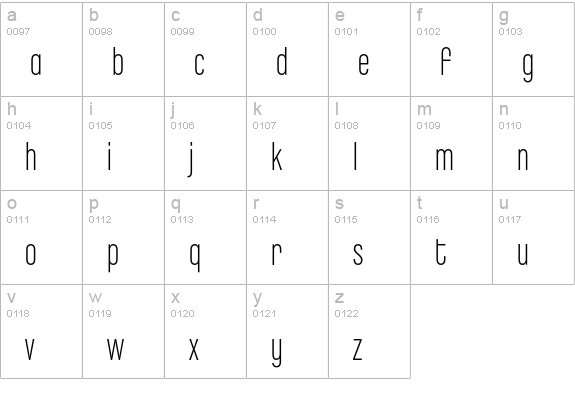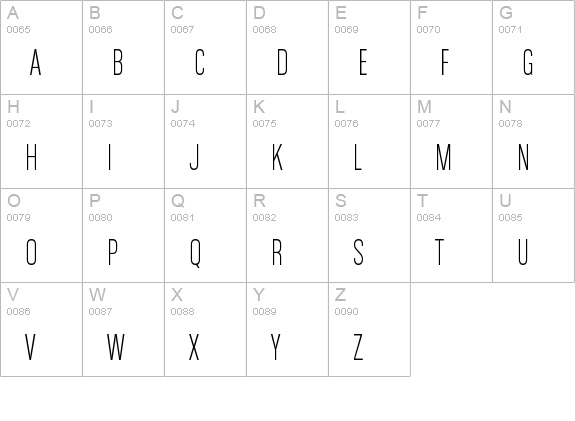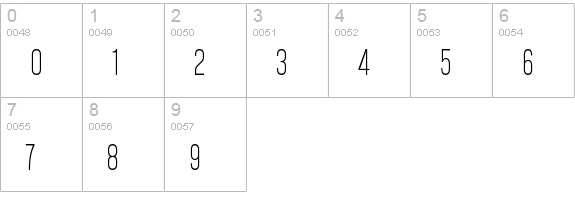
ChaletComprime MilanEighty Font Details
ChaletComprime MilanEighty font is a beautifully designed typeface that exudes elegance and sophistication. Its sleek lines and modern aesthetic make it perfect for a wide range of design projects, from branding to editorial design. The font's tall, narrow letterforms give it a unique and stylish look that is sure to make your work stand out. What's even better is that ChaletComprime MilanEighty font is available for free download at FontsMarket.com. This means you can easily access this stunning font and use it in your projects without any cost. Whether you're a professional designer looking to add a touch of class to your work or a hobbyist looking to experiment with new fonts, ChaletComprime MilanEighty font is a fantastic choice. Download it today and elevate your design projects with this exceptional typeface.